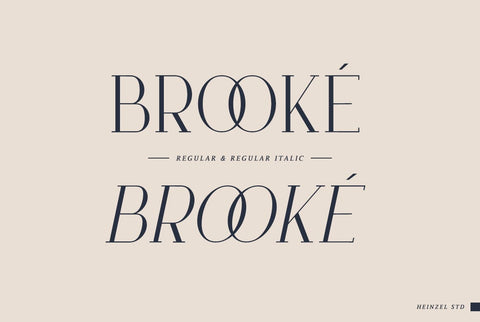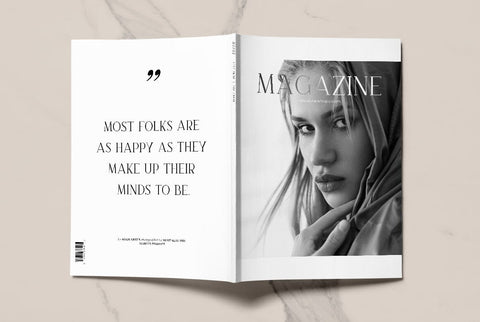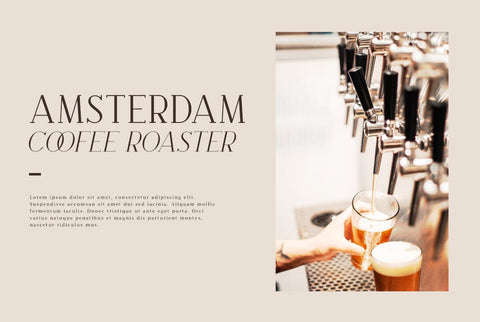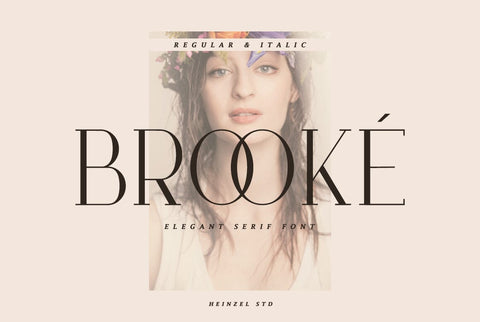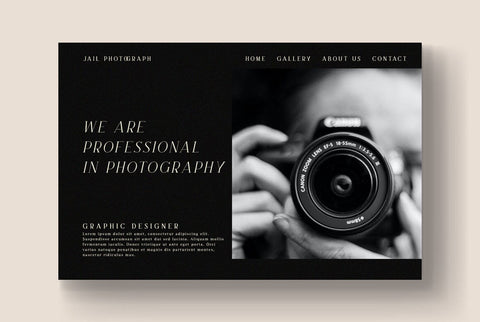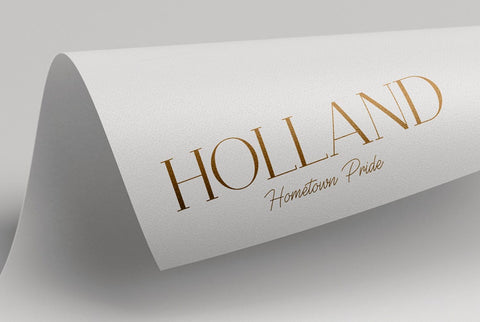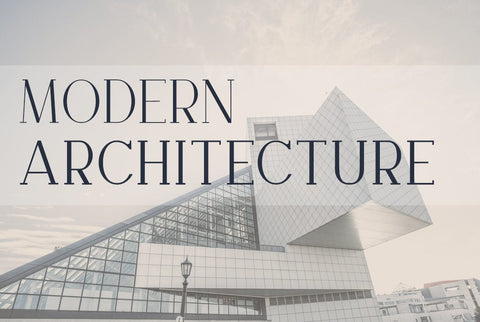
Brooke Minimalist Serif Font
Brooké - Modern Serif and minimalist character! Brooké perfect use for logos, print, collage, body text, headline and more! It looks minimalist a really cool modern-meets-vintage look to any piece.
- Brooké, Regular, Bold, Black and Italic version, serif font (ALL CAPS), numerals and more punctuations.
- Multilingual support for various languages